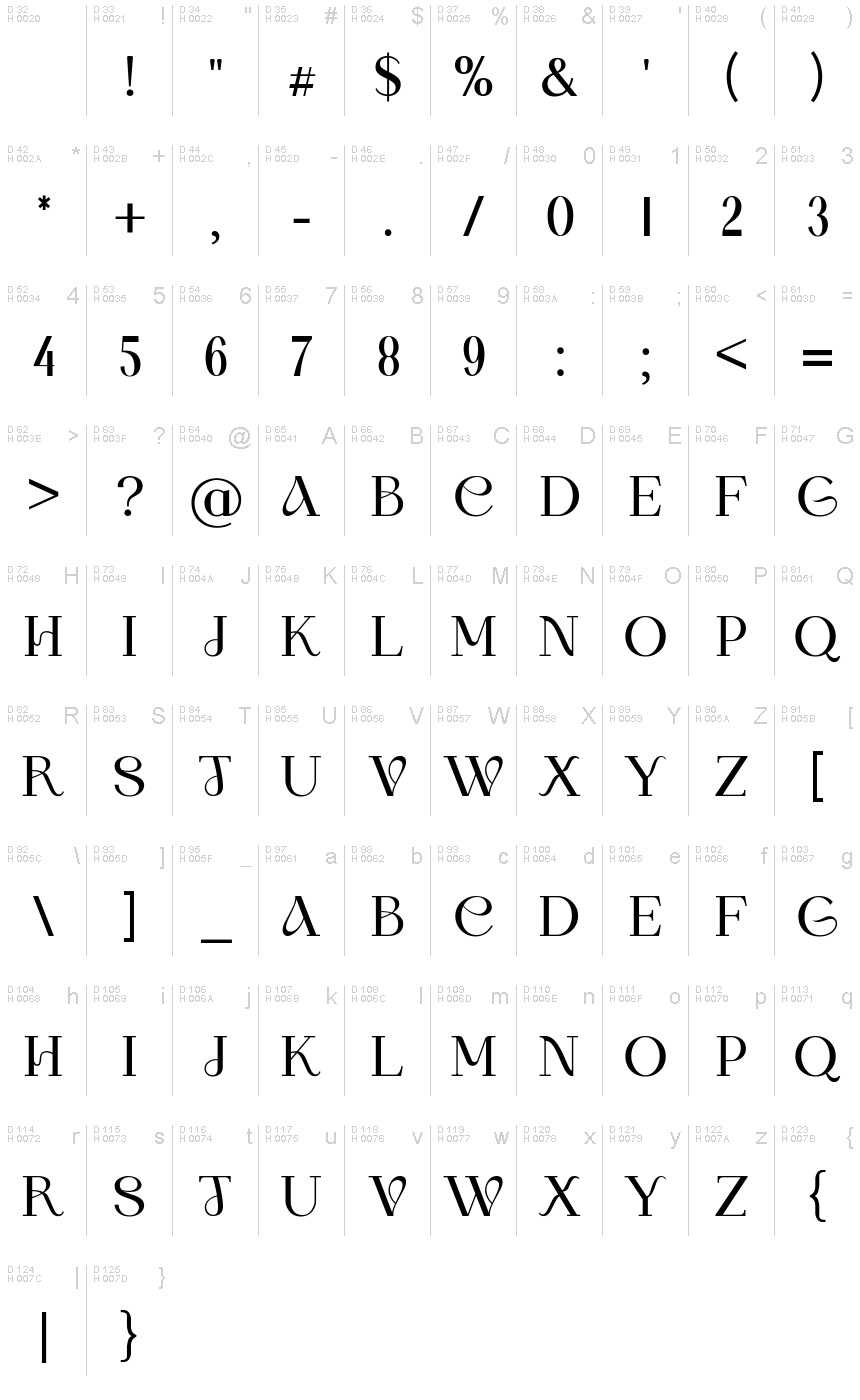
Romania
Romania, a captivating serif font crafted by UI Creative, exudes a refined elegance that commands attention. With its graceful curves and well-defined serifs, this typeface evokes a sense of timelessness and sophistication. The carefully balanced stroke weights and harmonious letterforms create a visually striking and cohesive appearance, making Romania an excellent choice for projects seeking to convey a touch of classic sophistication.
The versatility of Romania shines through its ability to seamlessly adapt to a variety of design contexts. From high-end editorial content to elegant branding and packaging, this font's distinctive personality lends itself effortlessly to projects that demand a touch of traditional charm. Whether you're crafting eye-catching headlines, crafting refined body text, or designing captivating logotypes, Romania is a reliable and versatile choice that can elevate the aesthetic appeal of your work.